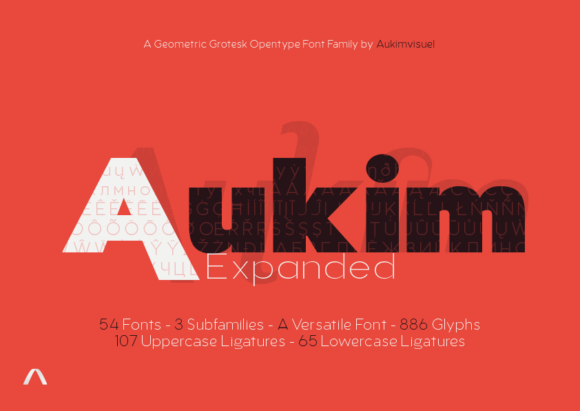
Whatever the reason, we’re excited to introduce you to the Aukim Expanded Font, a simple yet sharp display font designed to inspire your next masterpiece. With its clean lines and bold strokes, this versatile font is perfect for designers looking to add a touch of sophistication to their work.
Whether you’re a seasoned pro or just starting out, the Aukim Expanded Font is a valuable addition to your design toolkit. Its endless possibilities make it a must-have for anyone looking to elevate their creative game.
Aukim Expanded Font Key Features
- Character Set: This font includes a comprehensive character set, covering multiple languages and scripts, including Latin, Cyrillic, and Greek alphabets.
- Expanded Character Set: A unique feature of the Aukim Expanded Font is its expanded character set, which includes additional characters, such as ligatures, swashes, and ornaments, to enhance the design and aesthetic appeal of text.
- Script and Stylistic Alternates: This font offers a range of script and stylistic alternates, allowing users to add a personal touch to their designs and create unique, custom typography.
Aukim Expanded Font Review
Aukim Expanded Font is a visually striking font that can add a unique touch to your designs. ✨ One of its standout features is its versatility – it can be used for both headings and body text, making it a great choice for a wide range of projects.
The font’s expanded feel gives it a friendly and approachable vibe, which can be particularly effective in designs aimed at younger audiences or those with a more casual tone. ✨ Additionally, the font’s subtle flair at the ends of lines adds a touch of elegance, making it suitable for more refined designs as well.
What Doesn’t Quite Work
- ⚠️ At smaller font sizes, the expanded feel can start to look a bit awkward, especially in body text. This may require careful adjustments to ensure the text remains readable.
- ⚠️ The font may not be the best choice for highly technical or formal content, as its playful feel can detract from the seriousness of the subject matter.
Overall, Aukim Expanded Font is a great choice for designers looking to add a bit of personality to their projects. While it may have some limitations, its unique charm and versatility make it a worthwhile consideration for a wide range of applications.
Getting the Most Out of Aukim Expanded Font
For optimal results, use Aukim Expanded Font in combination with bold or italic text to create a visually striking effect. You can also use it in conjunction with other fonts to create a unique typography style.
Aukim Expanded Font is commonly used in design projects that require a bold, eye-catching font. Some common use cases include:
– Headlines and titles
– Infographics and data visualizations
– Social media graphics and advertisements